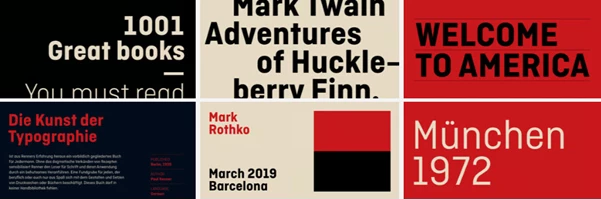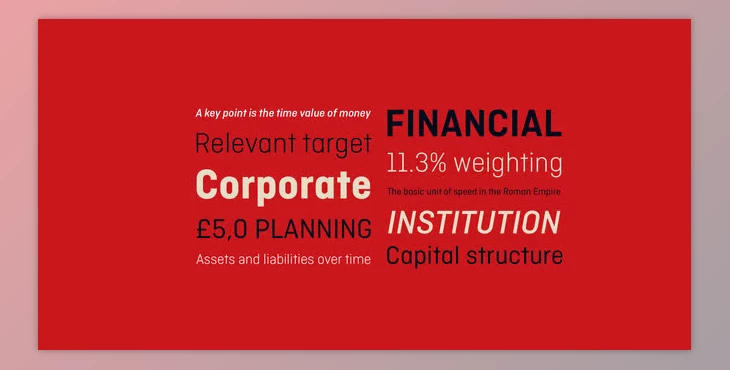
The Ciutadella Font Family is a geometric sans serif typeface designed for the studio of Mario Eskenazi. Aesthetic balance is achieved through its clean simplicity, which makes the typeface versatile. A hallmark of Ciutadella's design is its gentle refinement, which is "open" and welcoming. This makes it useful for nearly any form of branding, identity systems, or publication. Despite being a display face, Ciutadella performs remarkably well in medium-length text passages due to some of its features, like alternate two-story 'a 'that give the typeface its charm.
These features and more are accessible through the OpenType format, which enables advanced typographic features like Alternate Characters, Tabular Figures, and even Central and Eastern European languages font support. With 10 styles total, the family includes 5 weights: Light, Regular, Medium, SemiBold, and Bold, each with matching italics. This broad collection greatly increases the value of Ciutadella's simplicity for handiwork efficiency sought by designers.